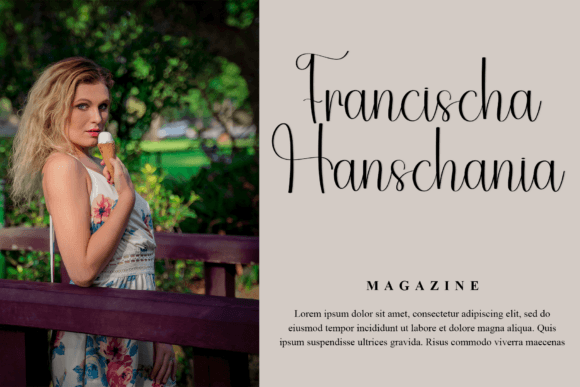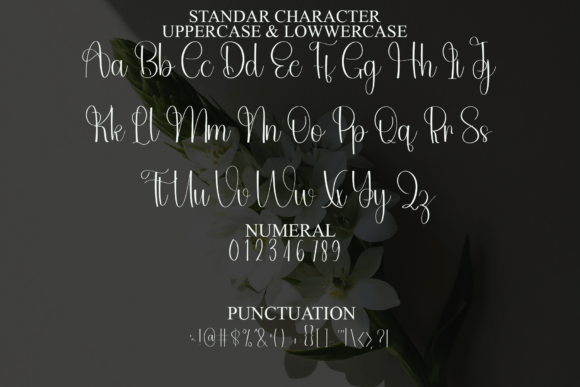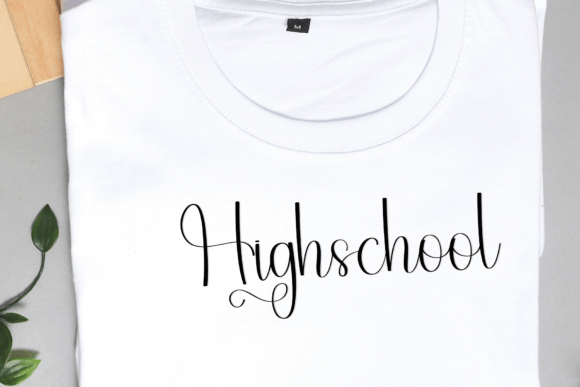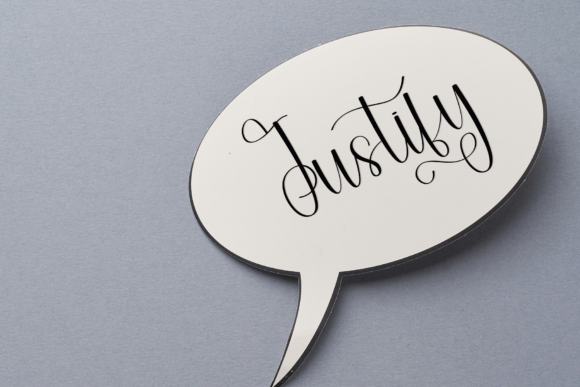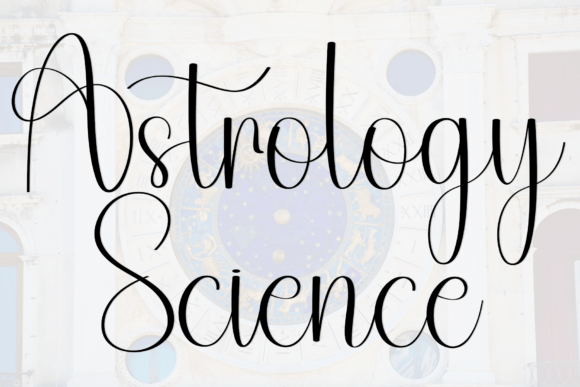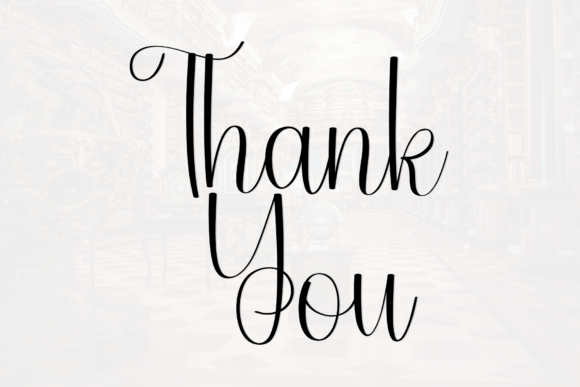
The Perfect Celestial Script: Unveiling the Astrology Font
Have you ever been browsing through a beautiful wedding invitation, and suddenly, you’re swept away by the elegant script that catches your eye? That’s exactly what happens when designers use the Astrology Font – a stunning, handwritten script that adds a touch of magic to any design.
The Astrology Font is a versatile and sophisticated font that’s perfect for any project that requires a personal, handwritten feel. From wedding invitations to thank you cards, quotes, and logos, this font is sure to make your designs shine. As a designer, you know the value of having the right tools at your fingertips, and the Astrology Font is an invaluable addition to any design arsenal.
Astrology Font Key Features
- Font Family: Astrology Font is a unique, hand-drawn font designed specifically for astrology and spiritual purposes. It features a celestial-inspired design with intricate details and ornate flourishes.
- Unique Characteristics: Astrology Font features a range of unique characteristics, including intricate details, ornate flourishes, and celestial-inspired designs, making it a standout choice for astrology and spiritual applications.
Astrology Font Review
Overall, I think the Astrology Font is a unique and visually appealing choice for designers looking to add an extra layer of depth to their projects. ✨ Here are a few things that really stand out:
- It’s great for projects that require a mystical or celestial theme, making it perfect for astrology-inspired websites or apps.
- The font is highly customizable, with a wide range of options for color, size, and style.
- The astrology symbols and glyphs are well-designed and add a nice touch of authenticity to any project.
- The font can be a bit overwhelming if used in large quantities or as the primary font for a project.
- The astrology symbols and glyphs can be difficult to read in smaller sizes or at a distance.
- The font may not be suitable for projects that require a more traditional or minimalist aesthetic.
Overall, I think the Astrology Font is a great choice for designers who want to add a touch of magic to their projects. While it may have some limitations, the unique features and customization options make it a valuable addition to any designer’s toolkit.
Use the Astrology Font to add a touch of mysticism and elegance to your designs.
Combine the font with other celestial-themed elements, such as stars and moons, for a cohesive look.
Experiment with different font sizes and colors to create a unique and eye-catching design.
Use the Astrology Font for:
Astrology-themed posters and prints
Spa and wellness branding and marketing materials
Magazine and book covers